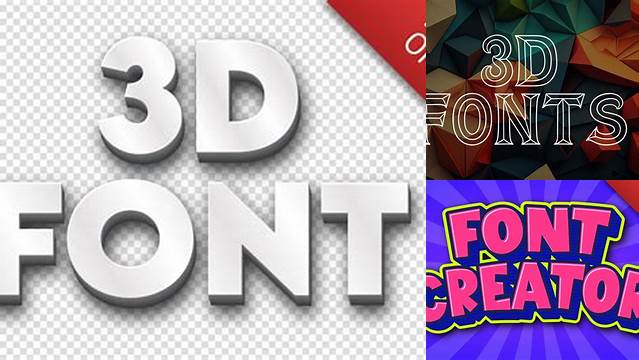
Free 3D Font Creator: Download & Design Bold Text
Are you looking to add a unique dimension to your design projects? Do you want your text to pop off the screen and grab attention? Well, guys, you're in luck! Creating stunning 3D fonts has never been easier, thanks to the plethora of free 3D font creators available for download. In this article, we'll dive deep into the world of 3D fonts, exploring their uses, benefits, and, most importantly, how you can get your hands on a fantastic 3D font creator without spending a dime. So, buckle up and let's embark on this creative journey together!
Why 3D Fonts? The Power of Dimensionality
Before we jump into the nitty-gritty of free downloads, let's take a moment to appreciate the sheer awesomeness of 3D fonts. Unlike their flat, 2D counterparts, 3D fonts possess depth, volume, and a sense of realism that can elevate your designs to a whole new level. Think about it – a logo with a 3D font instantly commands attention, a website heading in 3D feels more engaging, and even social media graphics can benefit from the added visual appeal.
3D fonts are not just about aesthetics; they're about making a statement. They communicate sophistication, innovation, and a keen eye for detail. Whether you're designing a brand identity, creating marketing materials, or simply adding flair to your personal projects, 3D fonts can be your secret weapon. They allow you to express your creativity in ways that traditional fonts simply can't match. Imagine crafting a bold and impactful movie poster title, or designing a futuristic video game logo – 3D fonts are the perfect choice for these scenarios.
But the power of 3D fonts extends beyond just visual appeal. They can also enhance the overall user experience. On websites, for example, 3D fonts can guide the user's eye, highlight important information, and create a sense of depth and immersion. In presentations, they can add dynamism and prevent your slides from looking flat and boring. The possibilities are truly endless.
What to Look for in a Free 3D Font Creator
Okay, so you're convinced about the magic of 3D fonts, and you're ready to dive in. But with so many free 3D font creators out there, how do you choose the right one? Don't worry; I've got you covered. Here are some key features and considerations to keep in mind when making your selection:
- User-Friendliness: This is paramount, guys! You don't want to spend hours wrestling with a complicated interface. Look for a creator that's intuitive, easy to navigate, and offers a smooth learning curve. A good 3D font creator should allow you to focus on your creativity, not on deciphering cryptic menus.
- Customization Options: The more options, the merrier! You should be able to adjust various parameters like font size, depth, bevel, texture, and lighting to create truly unique and personalized 3D fonts. The ability to import your own textures and materials is a huge plus.
- Pre-made Templates and Elements: Some creators come with a library of pre-designed 3D fonts, shapes, and elements that you can use as a starting point or incorporate into your designs. This can be a great time-saver, especially if you're new to 3D design.
- Community and Support: A strong community and readily available support can be invaluable, especially if you run into any issues or have questions. Look for creators with active forums, tutorials, and helpful documentation.
Top Free 3D Font Creators: Your Creative Toolkit
Now for the moment you've been waiting for! Let's explore some of the best free 3D font creators available today. These tools offer a range of features and capabilities, catering to different skill levels and design needs. So, without further ado, let's get started:
Blender: This is the big kahuna of free 3D software. Blender is a professional-grade, open-source 3D creation suite that can handle everything from modeling and animation to rendering and compositing. It's a powerful tool, but it does have a steeper learning curve than some other options. However, the sheer versatility and creative potential of Blender make it well worth the effort. You can create incredibly detailed and realistic 3D fonts with Blender, and the vast online community provides tons of tutorials and support. Imagine crafting a font that looks like it's made of polished metal, shimmering glass, or even molten lava – Blender can make it happen.
FontStruct: If you're looking for something more focused on font design, FontStruct is an excellent choice. This web-based tool lets you build fonts using geometric shapes, making it easy to create unique and stylized 3D typefaces. FontStruct is particularly well-suited for creating pixelated or geometric 3D fonts, which are popular in retro and futuristic designs. The interface is intuitive and user-friendly, and you can easily share your creations with the FontStruct community.
Wings 3D: Wings 3D is another powerful, open-source 3D modeler that's great for creating 3D fonts. It has a clean and intuitive interface, making it relatively easy to learn compared to Blender. Wings 3D offers a wide range of modeling tools, allowing you to sculpt and refine your fonts to perfection. It also supports various file formats, so you can easily export your creations for use in other applications.
ത്രിഡി பெயின்ட் (3D Paint): This application, also called ത്രിഡി பெயின்ட் (3D Paint) is a versatile option which is often included with Windows operating systems, you might already have it installed on your computer. While not exclusively a 3D font creator, it allows you to add 3D text to your projects, manipulate its depth and position, and apply various effects. ത്രിഡി பெயின்ட் (3D Paint) is a great option for quick and easy 3D font creation, especially if you're new to 3D design.
Online 3D Font Generators: There are also numerous online 3D font generators that you can use directly in your web browser. These tools are often simpler than desktop software, but they can still be great for creating basic 3D fonts quickly. Some popular online generators include FontFace Ninja and 3D Text Maker. Keep in mind that online generators may have limitations in terms of customization and output options.
Tips and Tricks for Creating Stunning 3D Fonts
Okay, you've chosen your 3D font creator, and you're ready to start experimenting. But before you dive in headfirst, let me share a few tips and tricks that can help you create truly stunning 3D fonts:
- Experiment with Different Fonts: Don't be afraid to try out different fonts and styles. Some fonts lend themselves better to 3D than others. Bold, sans-serif fonts often work well, but don't rule out serifs or even script fonts. The key is to experiment and see what works best for your project.
- Play with Depth and Bevel: Depth and bevel are two of the most important parameters in 3D font creation. Experiment with different depth values to see how they affect the overall look and feel of your font. Bevels add a rounded or angled edge to your font, which can make it look more polished and professional. Try different bevel styles and sizes to achieve the desired effect.
- Master Materials and Textures: Materials and textures can dramatically change the appearance of your 3D fonts. Experiment with different materials like metal, glass, wood, and plastic. You can also import your own textures to create unique and realistic effects. For example, you could create a font that looks like it's made of rusty metal, cracked stone, or even fluffy clouds.
- Light it Up: Lighting is crucial in 3D design. Experiment with different light sources, colors, and intensities to create the desired mood and atmosphere. Proper lighting can make your 3D fonts pop off the screen and add a sense of realism.
- Embrace Shadows: Shadows add depth and dimension to your 3D fonts. Experiment with different shadow settings to create subtle or dramatic effects. Soft shadows tend to look more realistic, while hard shadows can create a more stylized look.
- Keep it Readable: While 3D fonts can be visually stunning, it's important to ensure they're still readable. Avoid using overly complex or ornate fonts, especially for large blocks of text. Pay attention to kerning and leading to ensure your text is easy on the eyes.
- Use it Sparingly: 3D fonts are best used as accents or highlights, rather than for entire paragraphs of text. Overusing 3D fonts can make your design look cluttered and overwhelming. Use them strategically to draw attention to key elements.
Unleash Your Creativity: The World of 3D Fonts Awaits
So, there you have it, guys! A comprehensive guide to the wonderful world of 3D fonts and the free tools that can help you create them. With a little practice and experimentation, you'll be crafting eye-catching 3D typefaces in no time. Remember, the key is to have fun and let your creativity flow. The possibilities are endless, and the only limit is your imagination.
Now go forth and create some amazing 3D fonts! Your designs will thank you for it.